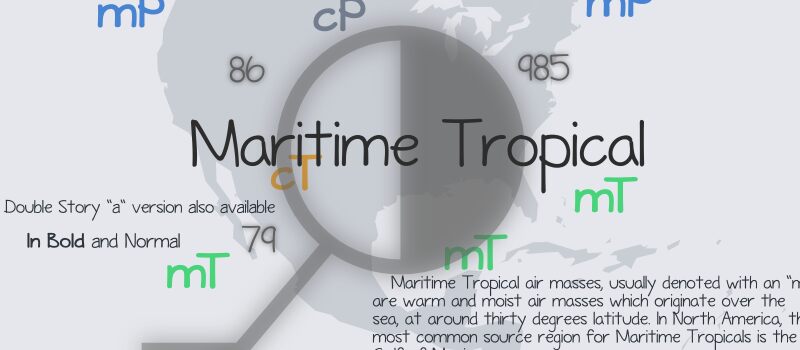
Maritime Tropical
Maritime Tropical is a free handwritten display font with tall, loosely drawn letters and a breezy, informal stance. Its uneven stroke widths and shifting proportions make each form feel quickly penned rather than carefully standardized.
A beach cafe identity is an especially natural fit, since the relaxed lettering suggests hand-painted menus and casual waterfront signs. It could also suit festival posters, drink packaging, and travel editorial graphics that need an unpolished personal note. The irregular curves help the words function like part of a sketch, connecting typography with simple illustrations of waves, fruit, or coastal scenery.